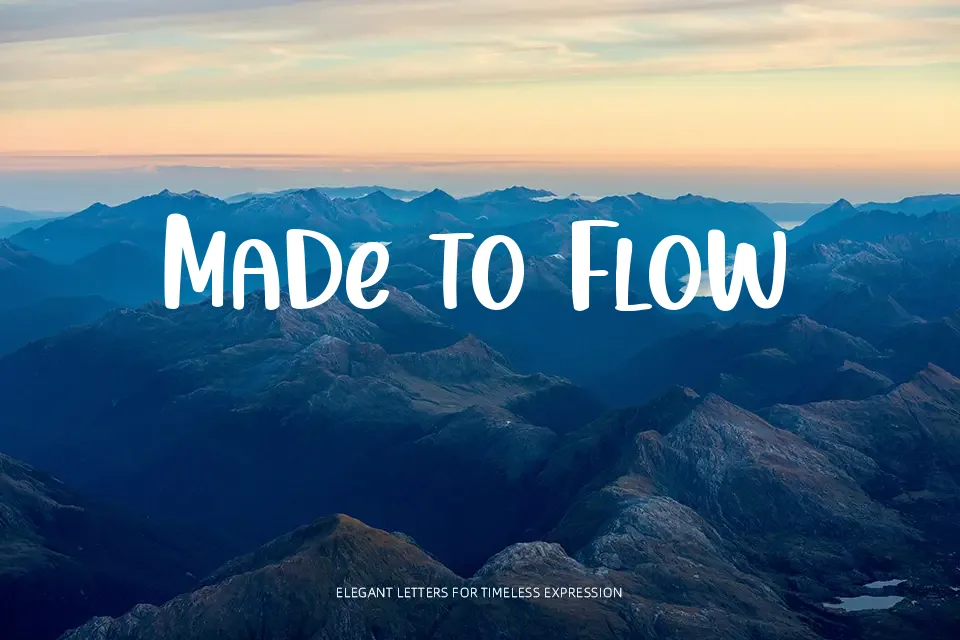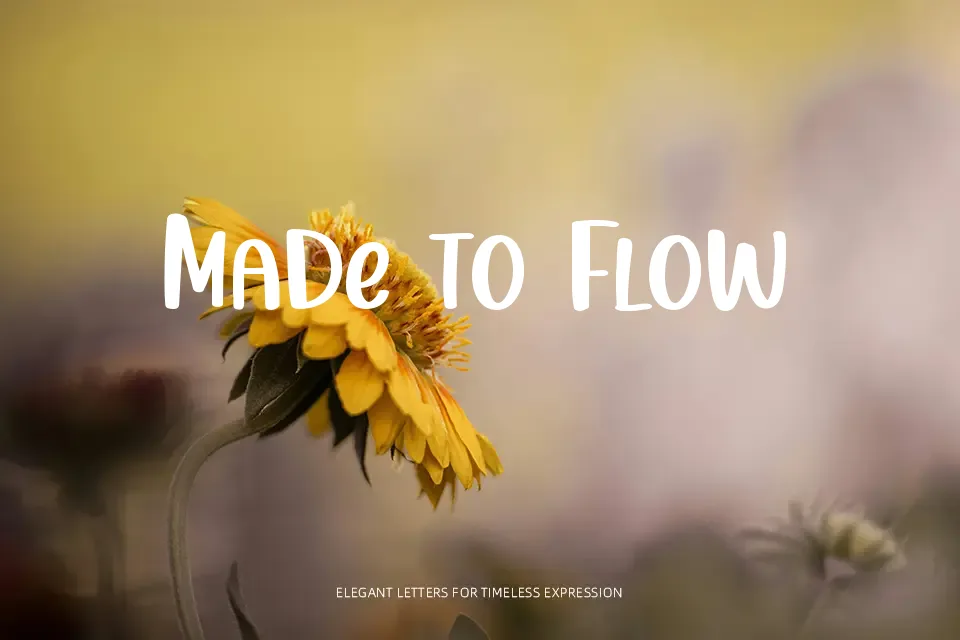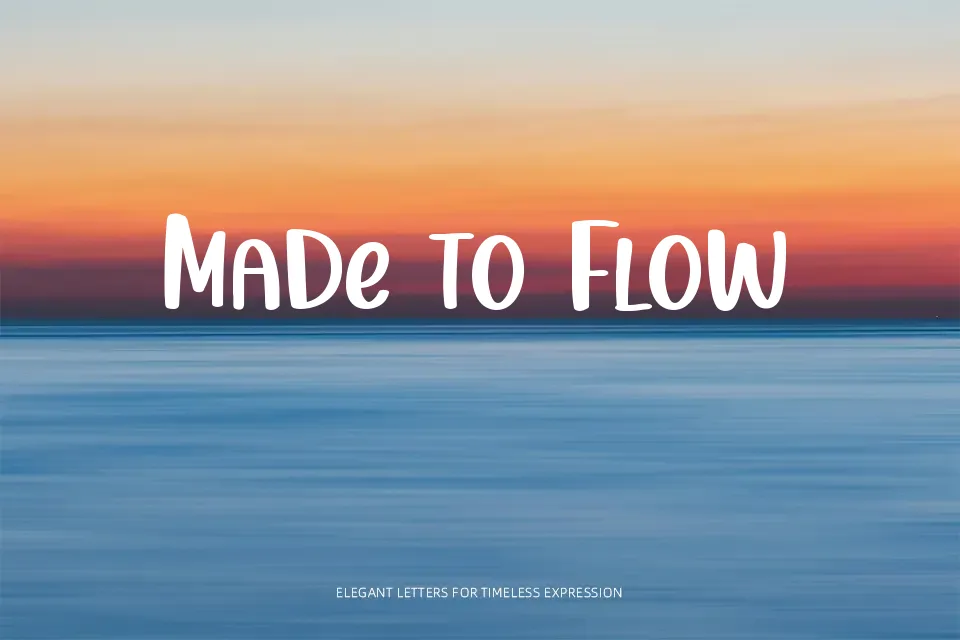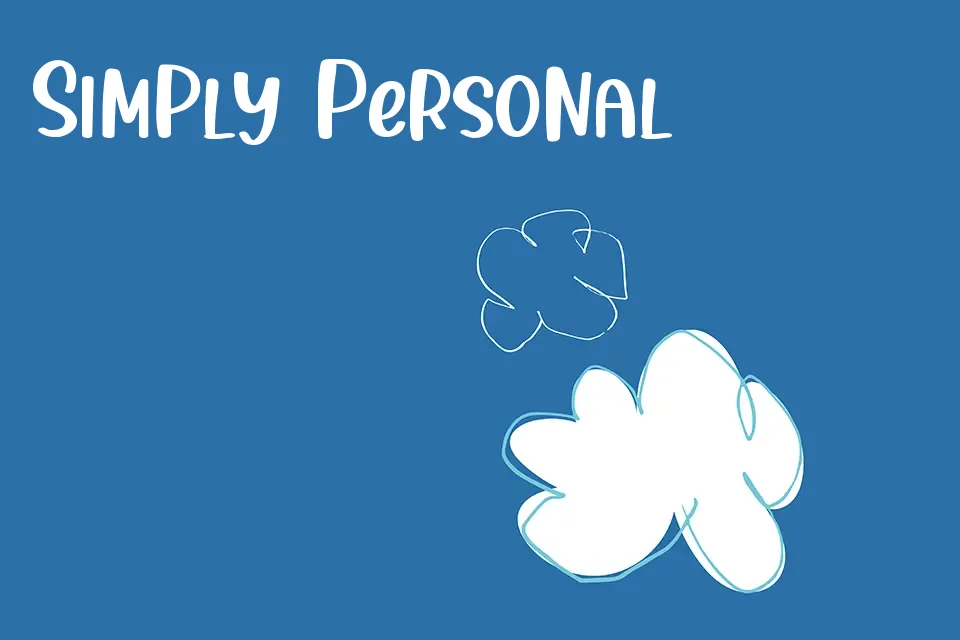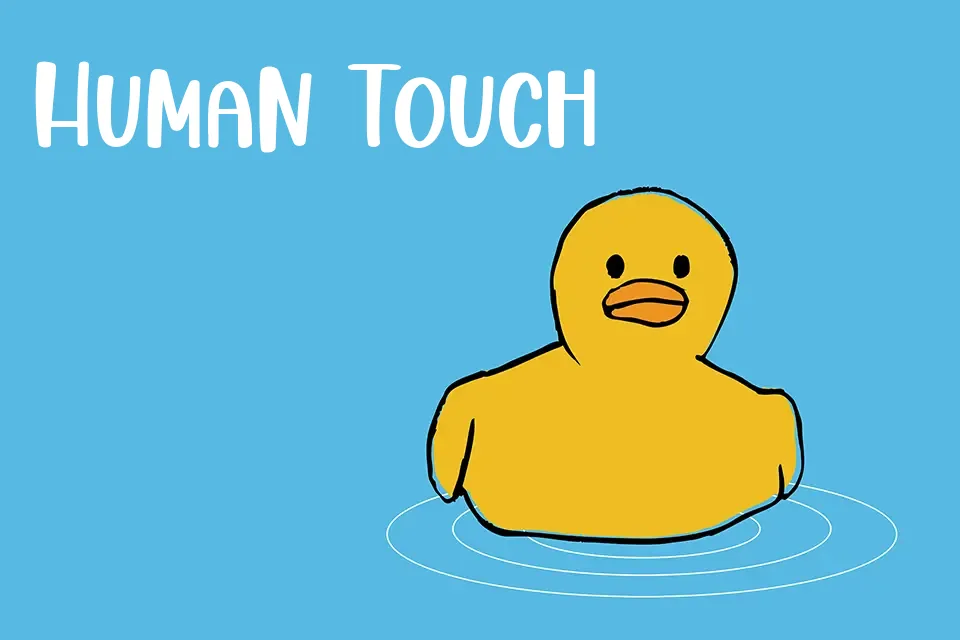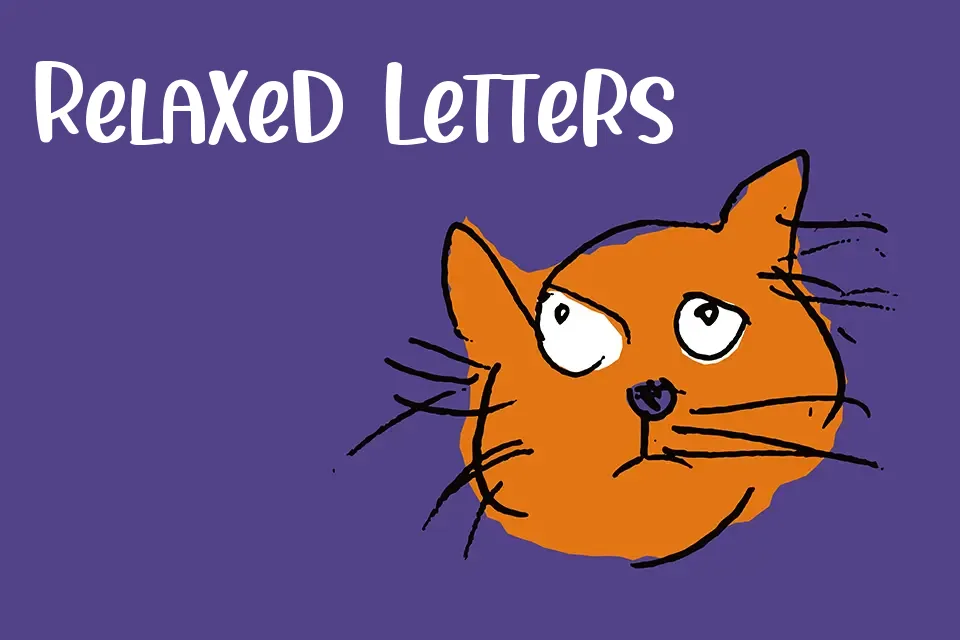
Thanks Autumn Font
Thanks Autumn Font features an informal handwritten script defined by fluid strokes, natural joins, and relaxed character proportions. Moderate spacing between letters helps preserve legibility across short titles, whereas gentle stroke variations provide a lively, spontaneous rhythm on the page. This design proves most effective in prominent headline settings, greeting stationery, and boutique brand marks that benefit from an approachable handmade aesthetic. However, dense character structures and flowing cursive details become less effective in prolonged reading environments or compact technical documentation.
Best For: seasonal greeting cards, boutique product packaging, social media graphics, artisanal logo design
Not Ideal For: body text paragraphs, mobile interface labels, spreadsheet data, technical manuals
Perfect for branding, headline, and logo, with a artistic and handwritten style.